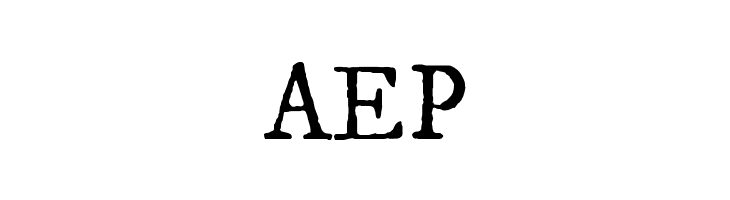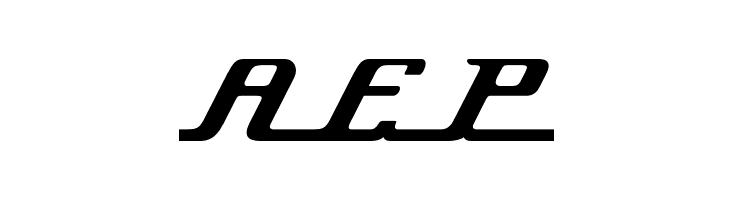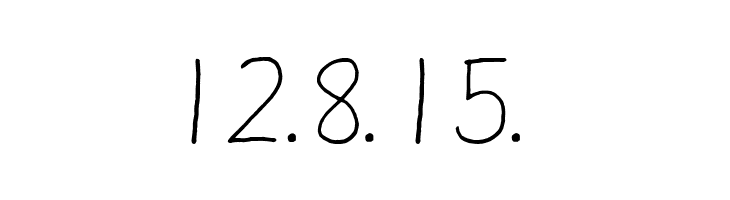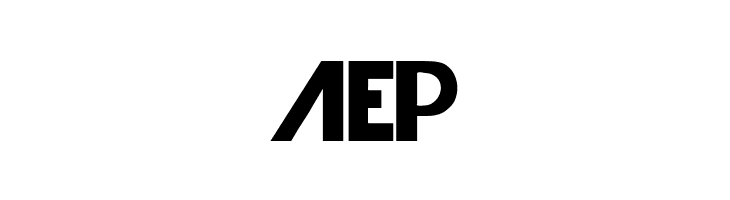
A bold, script-like font with monospaced characteristics and tight spacing.
A bold, geometric font with sharp angles and a modern aesthetic.
An elegant, italic serif font with medium contrast and classic style.
A classic serif font with a historical and elegant design.
A classic serif font with elegant, high-contrast strokes and pronounced serifs.
A classic, italicized font with elegant, flowing characters and historical charm.
A classic serif typeface with a vintage and historical feel, featuring well-defined serifs and elegant characters.
A classic serif font with a historical and authoritative style.